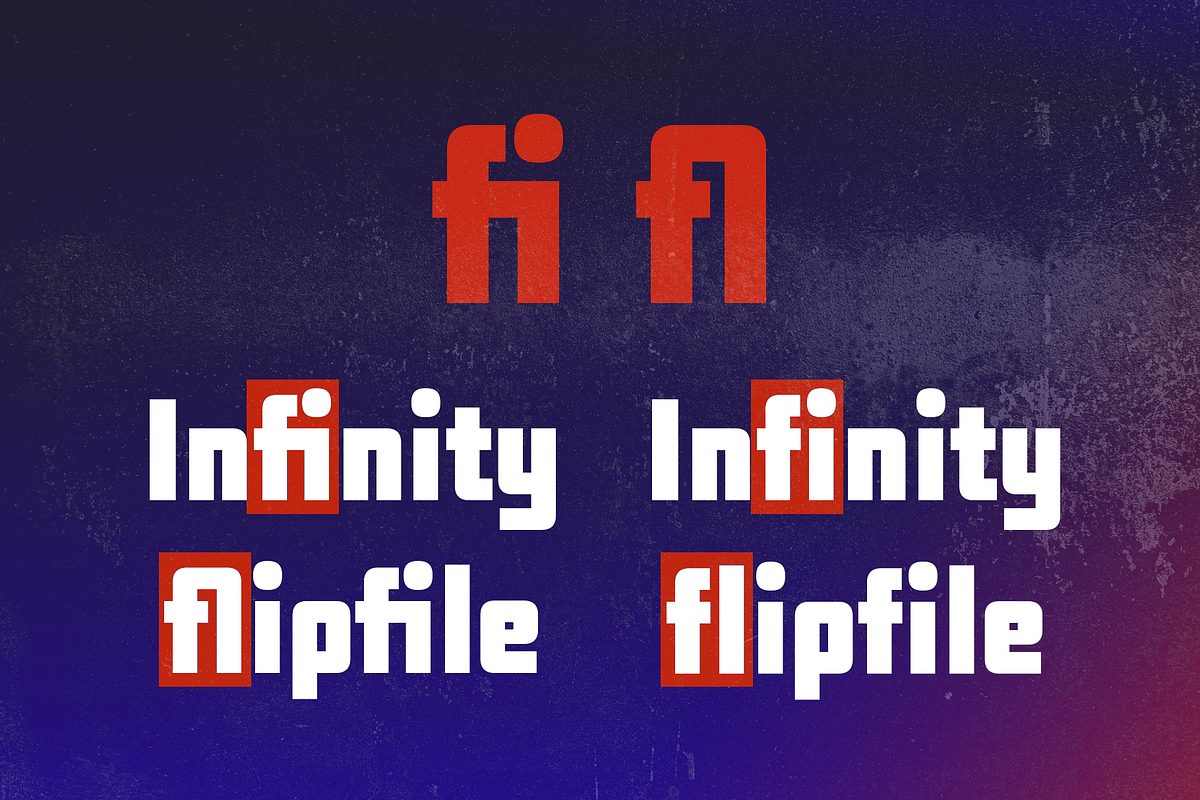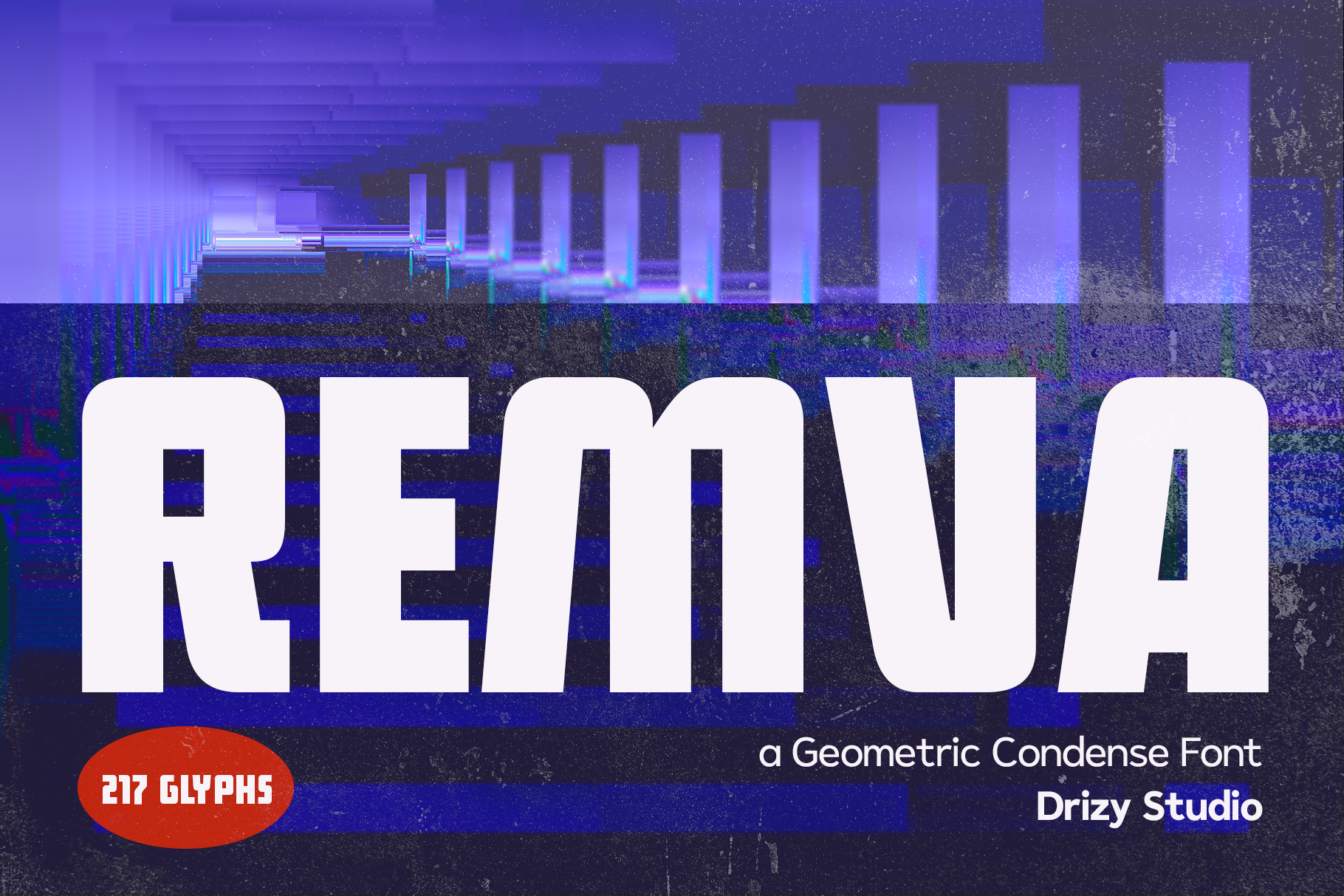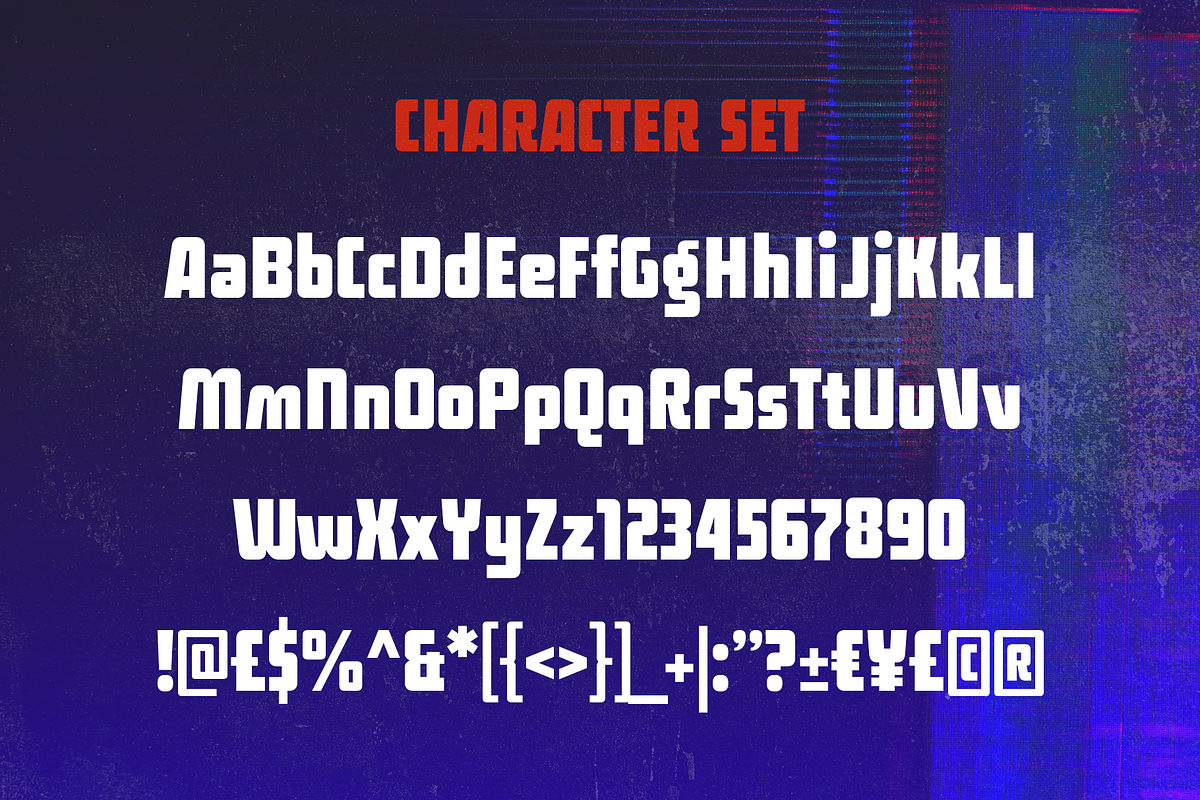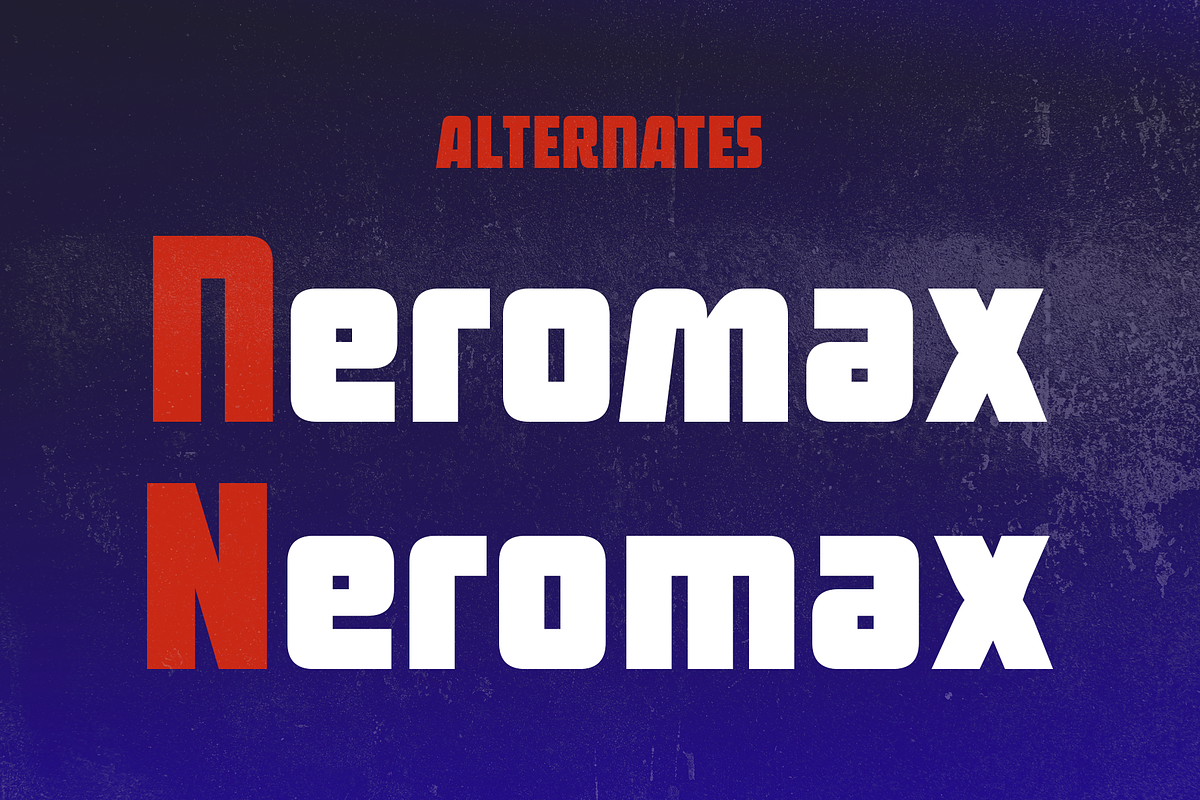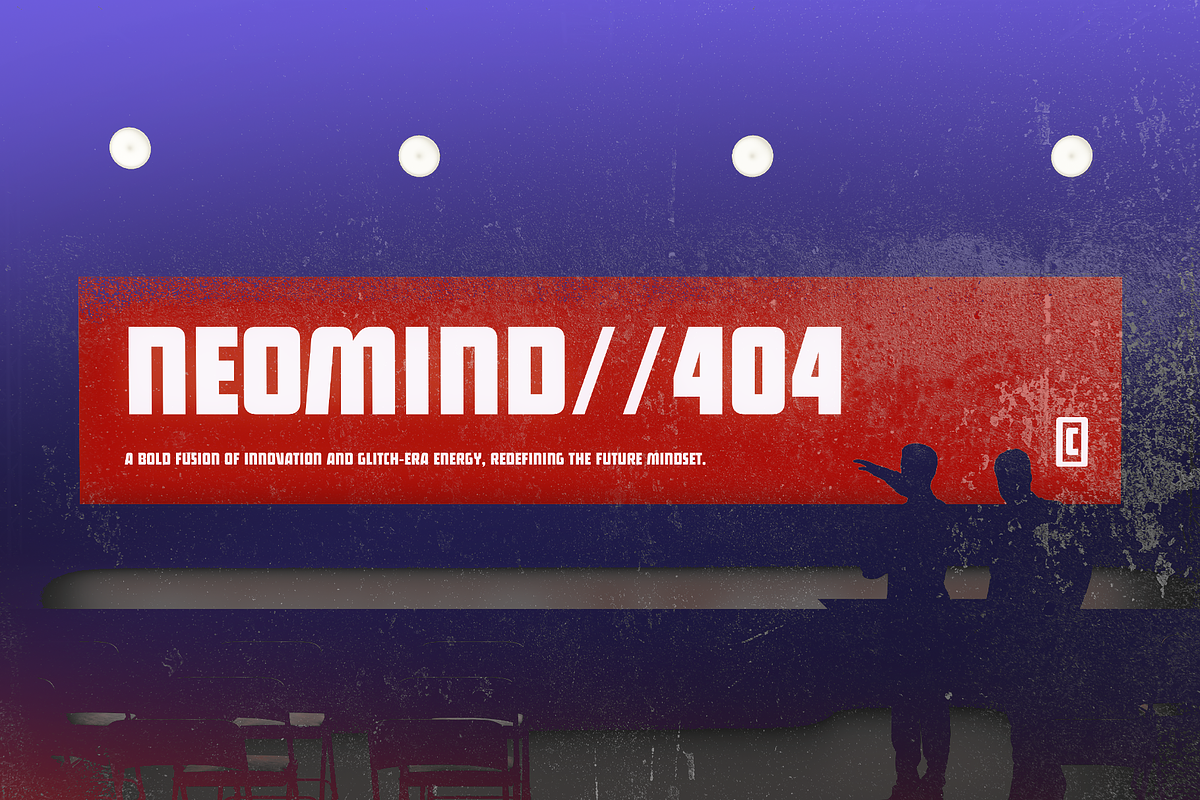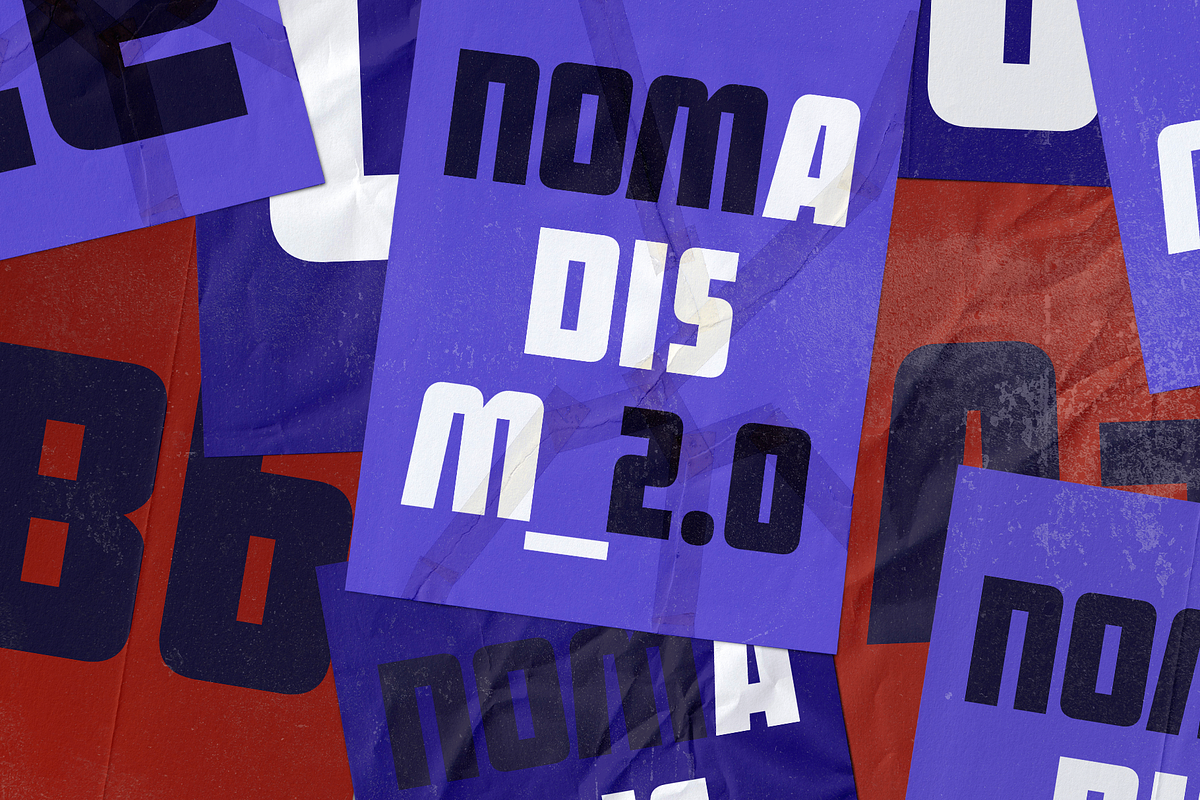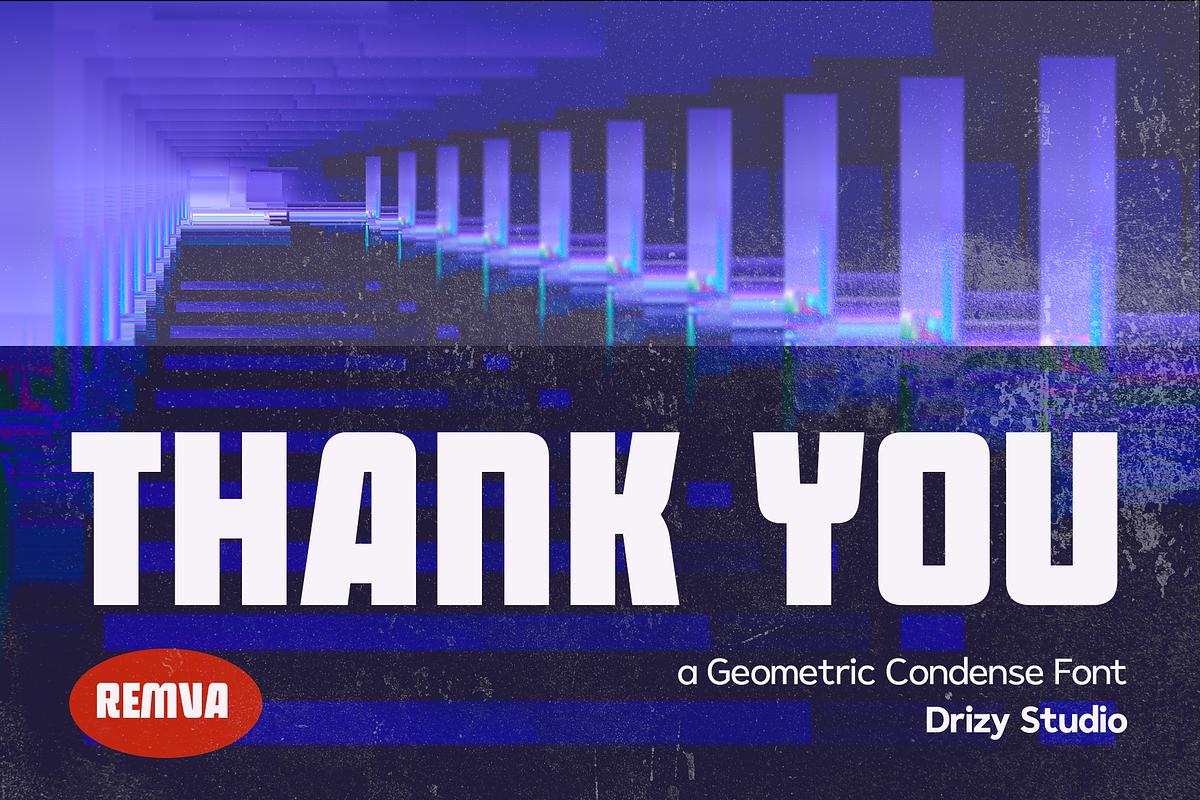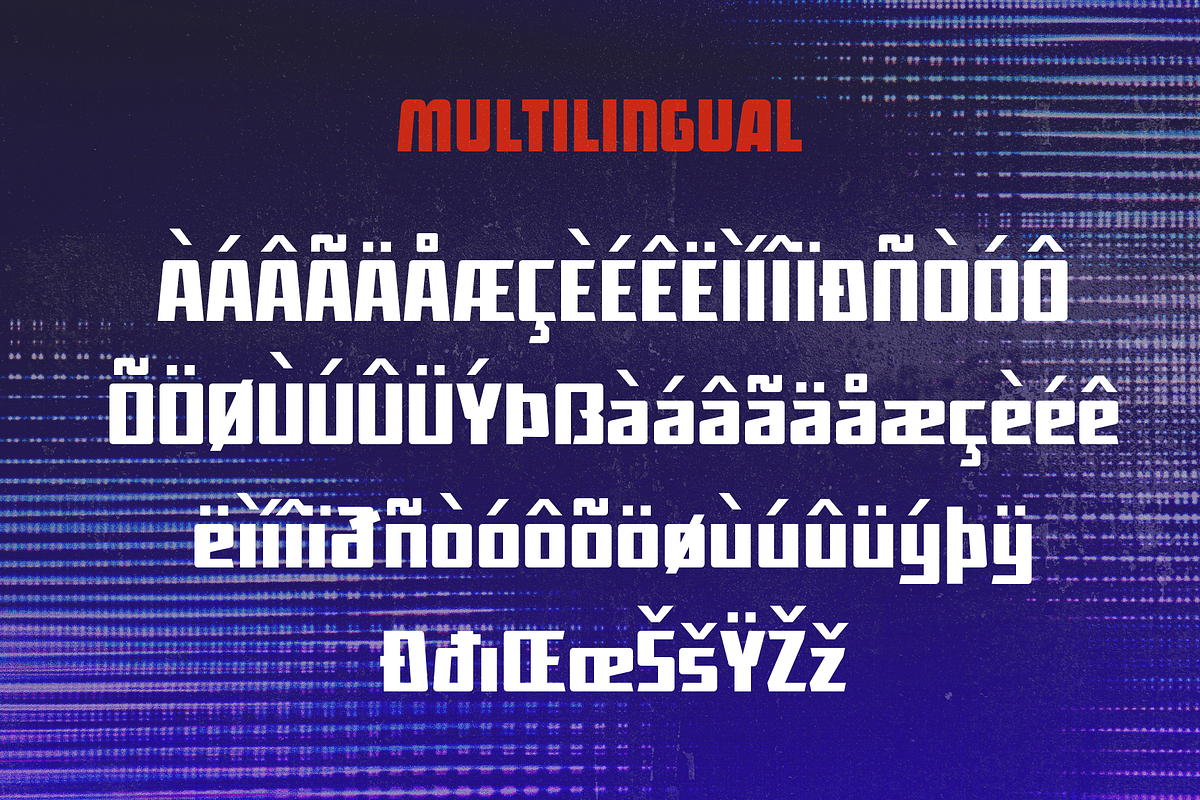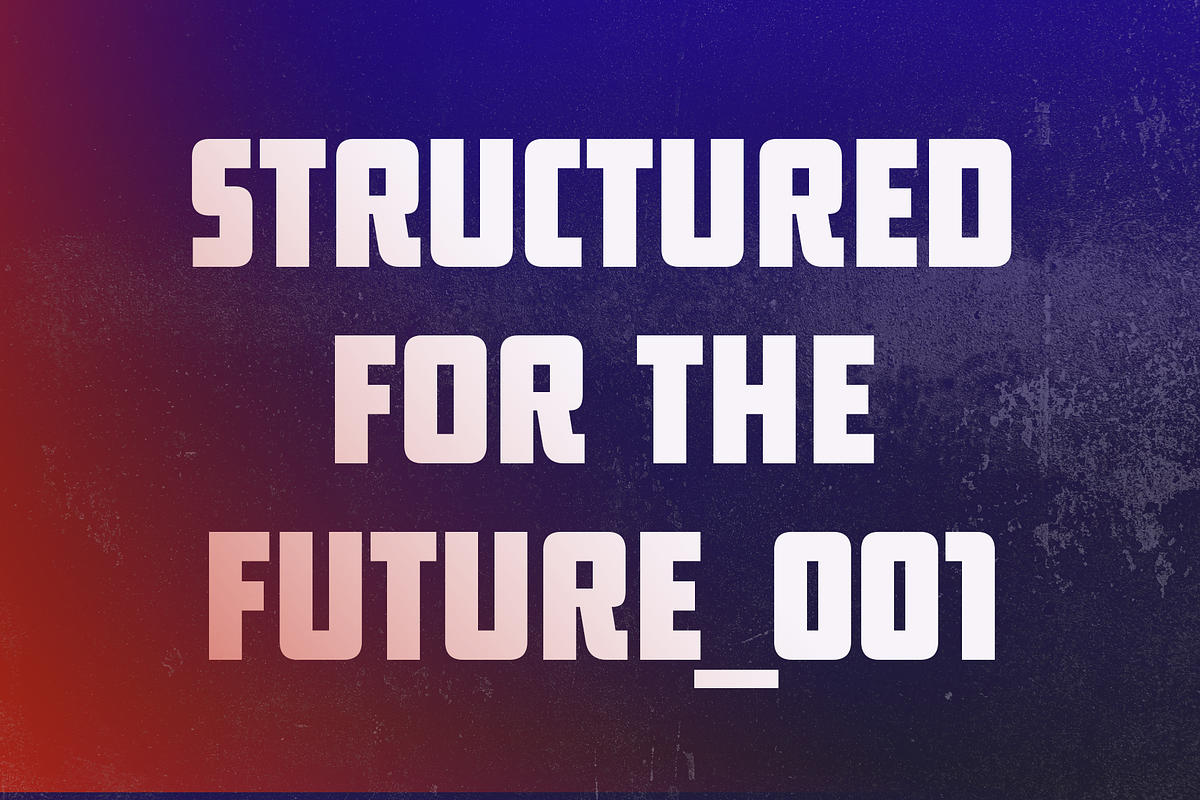
Remva – Geometric Condense Font
Remva is a modern geometric condensed font designed to deliver a strong and clean visual impact. With its sleek proportions and structured letterforms, Remva is perfect for headlines, branding, posters, sports designs, editorial layouts, and modern digital projects. The condensed style allows you to fit more text into tight spaces while maintaining excellent readability and a bold aesthetic.
Whether you’re creating contemporary branding, striking posters, or stylish social media graphics, Remva adds a confident and professional touch to your design.